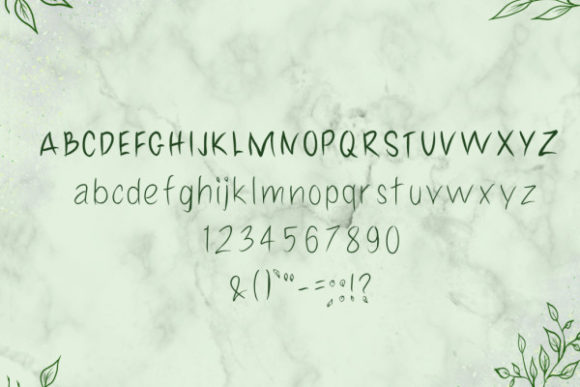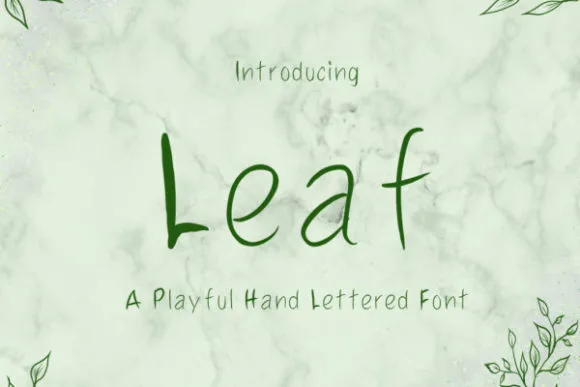
Script Fonts Leaf Font 0 140 FacebookTwitterPinterestWhatsApp 1 of 2 Leaf Font Poster 2... About Leaf Font Leaf is a playful and cute handwritten font. Its sweet and full of life style makes this font a wonderful choice for brightening up your designs. DOWNLOAD NOW